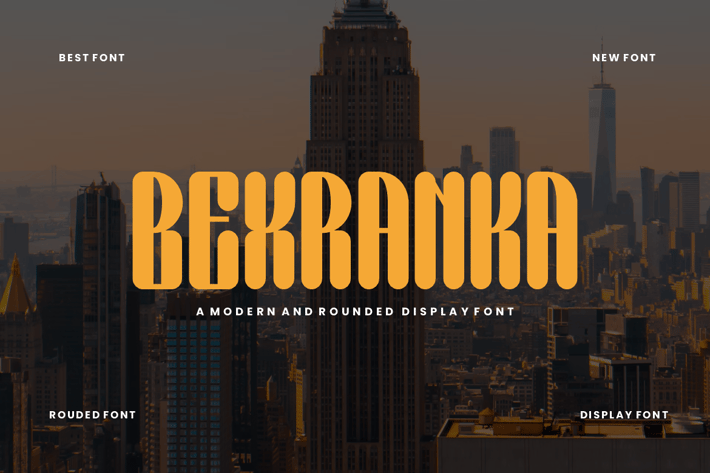
Bexranka Modern Rounded Font
Bexranka Modern Rounded Font Font is unique . Ready to use for your design like labeling, movie sceen, poster, movie title, gigs, album covers, logos, and much more.